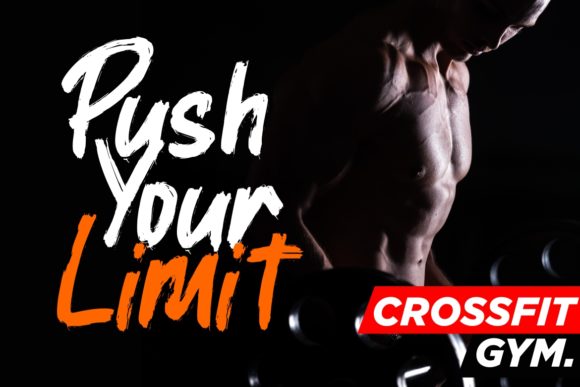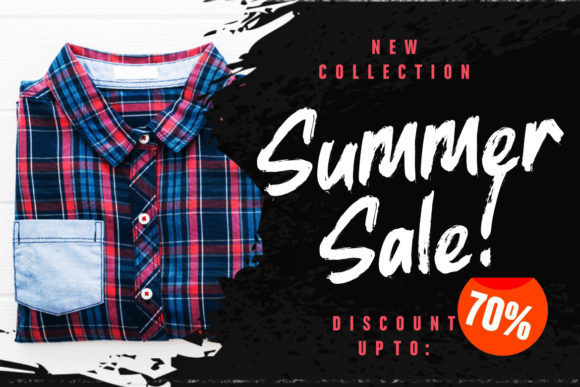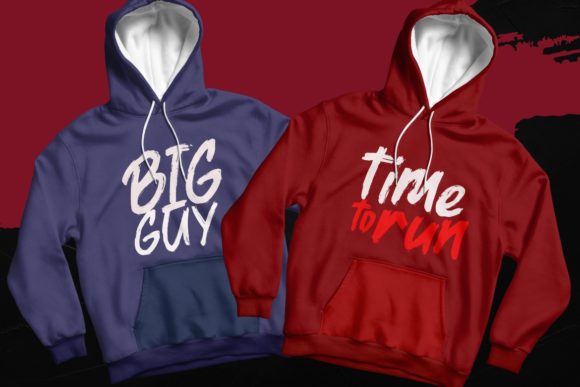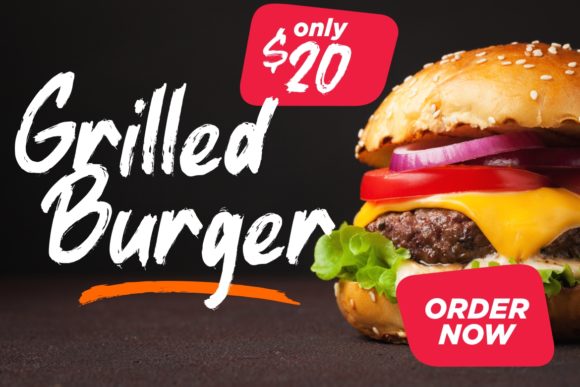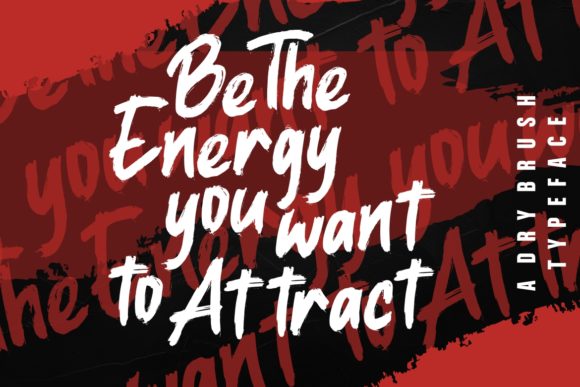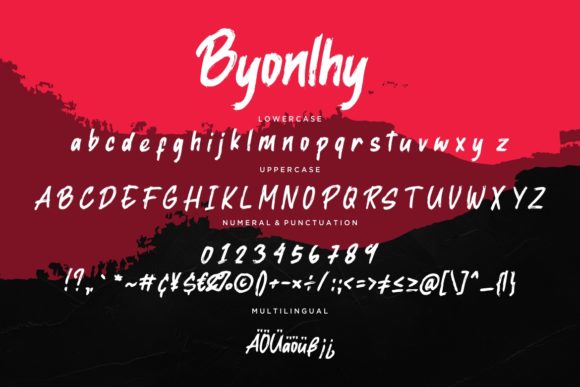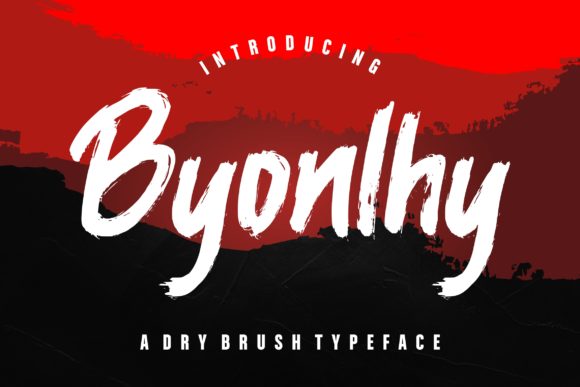
Introducing Byonlhy Font: The Ultimate Brush Pen Display Font
Are you a designer, crafty DIY enthusiast, or social media influencer looking for a unique and authentic font to elevate your creative projects? Look no further than Byonlhy Font, a stunning display font created with a brush pen. With its bold and authentic style, Byonlhy is the perfect addition to any design or crafting project, turning your ideas into true works of art.
The Story Behind Byonlhy Font
Byonlhy Font is a carefully crafted display font that embodies the essence of brush pen writing. Its authentic bold style is reminiscent of traditional brush calligraphy, making it an excellent choice for designers and crafters seeking to add a personal touch to their work. Whether you’re creating stunning Instagram posts, crafting beautiful DIY projects, or designing eye-catching marketing materials, Byonlhy Font is the perfect tool to bring your creative vision to life.
Key Features of Byonlhy Font
- Authentic Brush Pen Style: Byonlhy Font boasts an authentic brush pen style that adds a touch of elegance and sophistication to any design or project.
- Bold and Statement-Making: With its bold and confident style, Byonlhy Font is perfect for making a statement in your designs, whether you’re creating social media graphics, posters, or flyers.
- Versatile and Adaptable: Byonlhy Font is an incredibly versatile font that can be used in a wide range of creative projects, from Instagram posts and DIY crafts to marketing materials and branding designs.
Using Byonlhy Font for Instagram and Social Media
In today’s digital age, having a strong social media presence is crucial for designers, crafters, and businesses alike. Byonlhy Font is an excellent choice for creating stunning Instagram posts and social media graphics that are sure to grab attention. Its bold and authentic style makes it perfect for:
- Instagram Captions and Quotes: Use Byonlhy Font to create eye-catching captions and quotes that add a personal touch to your Instagram posts.
- Social Media Graphics: Create stunning social media graphics, such as posters, flyers, and brochures, that showcase your brand’s personality and style.
- Branding and Identity: Use Byonlhy Font to create a consistent brand identity across all your social media platforms, making your brand stand out from the crowd.
Using Byonlhy Font for DIY Projects and Crafts
Byonlhy Font is not just limited to digital design; it’s also perfect for DIY projects and crafts. Its authentic brush pen style makes it an excellent choice for:
- Hand Lettering and Calligraphy: Use Byonlhy Font as a guide for hand lettering and calligraphy projects, adding a touch of elegance and sophistication to your work.
- DIY Crafts and Scrapbooking: Add a personal touch to your DIY crafts and scrapbooking projects with Byonlhy Font, creating unique and eye-catching designs.
- Paper Crafting and Card Making: Use Byonlhy Font to create stunning paper crafting and card making projects, such as greeting cards, invitations, and gift tags.
Byonlhy Font is a versatile and authentic brush pen display font that’s perfect for designers, crafters, and social media enthusiasts. With its bold and statement-making style, Byonlhy Font is sure to elevate your creative projects and turn your ideas into true works of art. Whether you’re looking for fonts for Instagram, calligraphy scripts for DIY projects, or a unique font for your branding and identity, Byonlhy Font is the perfect choice. So why wait? Download Byonlhy Font today and unleash your creativity!